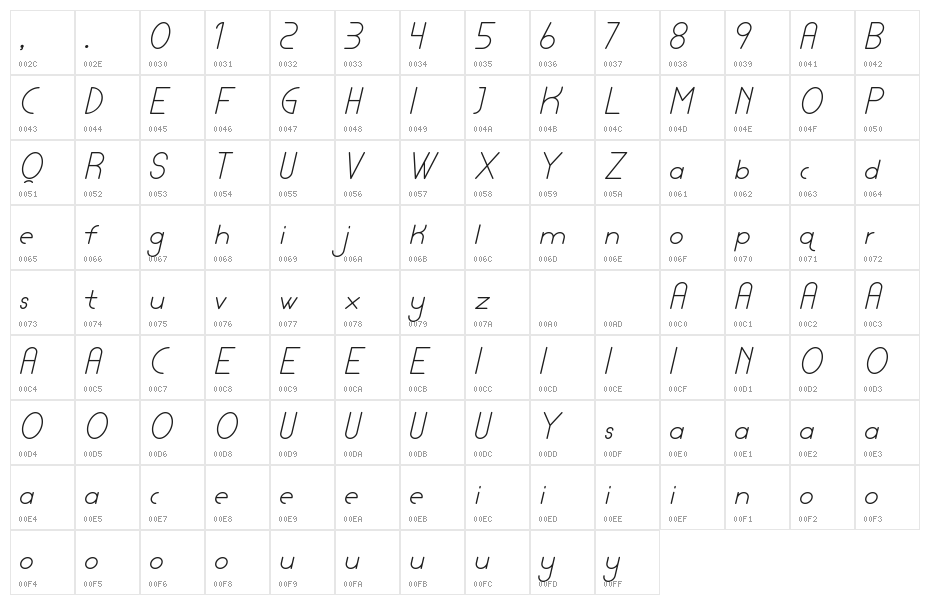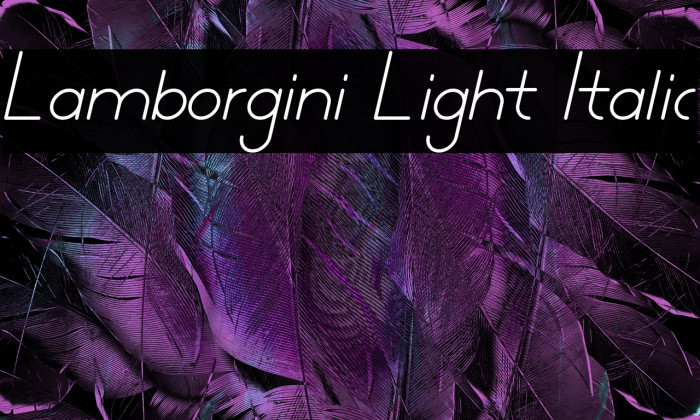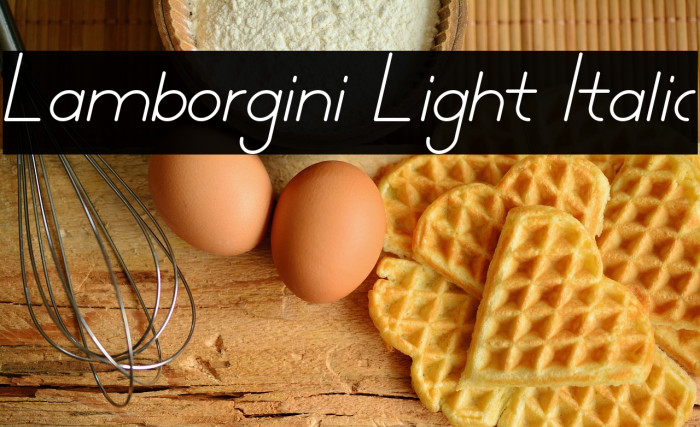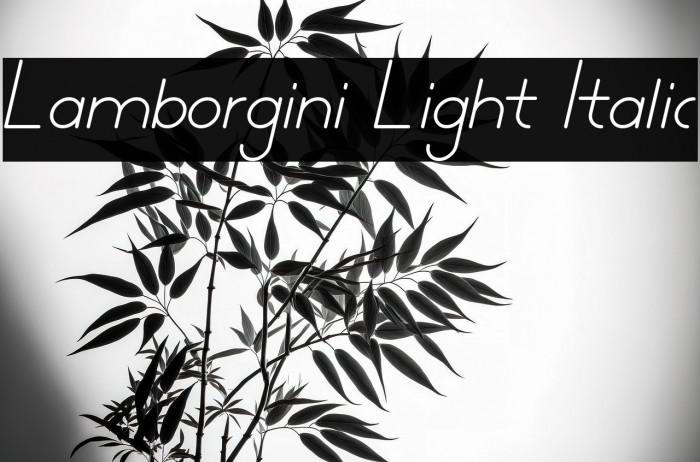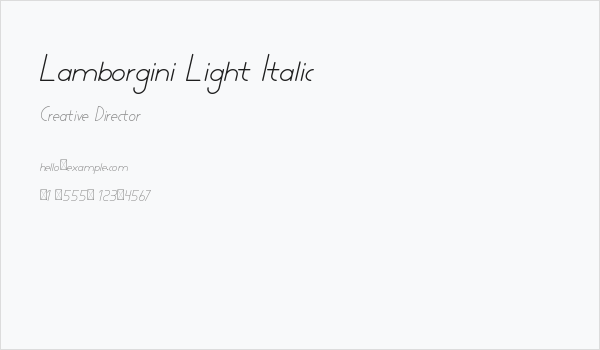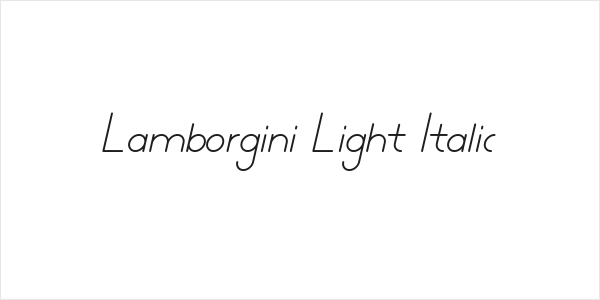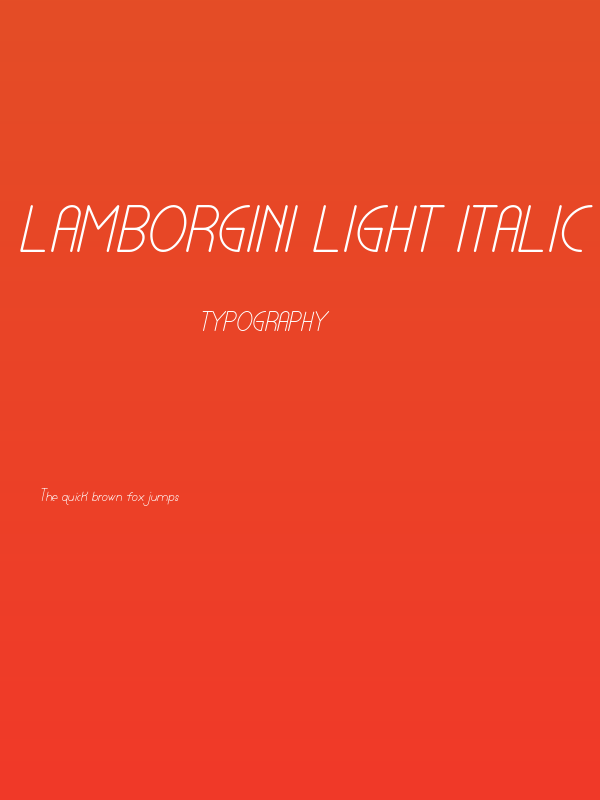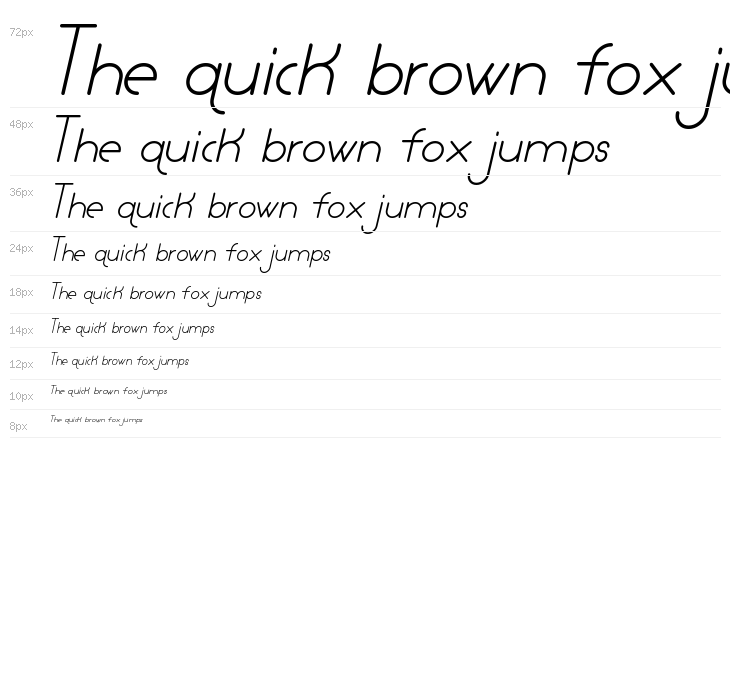
Lamborgini Light Italic Font
Lamborgini Light Italic Description
This font features a sleek and modern design with a light and airy feel. The characters are slightly elongated with a gentle italic slant, giving a sense of motion and elegance. The strokes are consistent and smooth, with rounded edges that add a touch of softness. The overall appearance is clean and minimalistic, making it suitable for contemporary designs. The numbers and special characters maintain the same style, ensuring uniformity across all elements. This font is ideal for projects that require a sophisticated yet approachable look.
| Proposed Projects | Ideal for branding, fashion magazines, modern websites, and elegant invitations. |